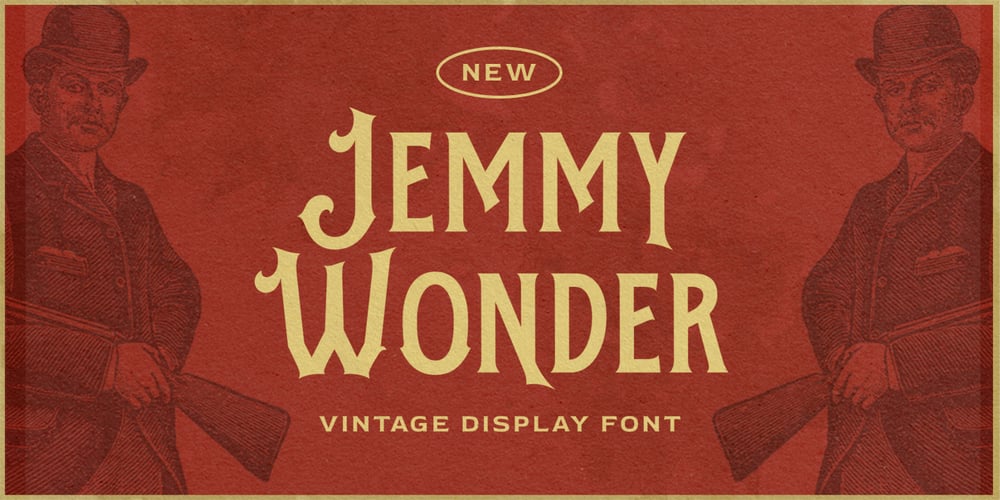
Jemmy Wonder Font Family was designed by Hendry Juanda and published by Letterhend. Jemmy Wonder contains 1 styles and family package options. Jemmy Wonder is a display typeface with a touch of vintage look and feel. This type of font perfectly made to be applied especially in logo, headline, signage and the other various formal forms such as invitations, labels, logos, magazines, books, greeting / wedding cards, packaging, fashion, make up, stationery, novels, labels or any type of advertising purpose.Features : uppercase & lowercase numbers and punctuation multilingual alternates / swashes and ligatures PUA encoded We highly recommend using a program that supports OpenType features and Glyphs panels like many of Adobe apps and Corel Draw, so you can see and access all Glyph variations.